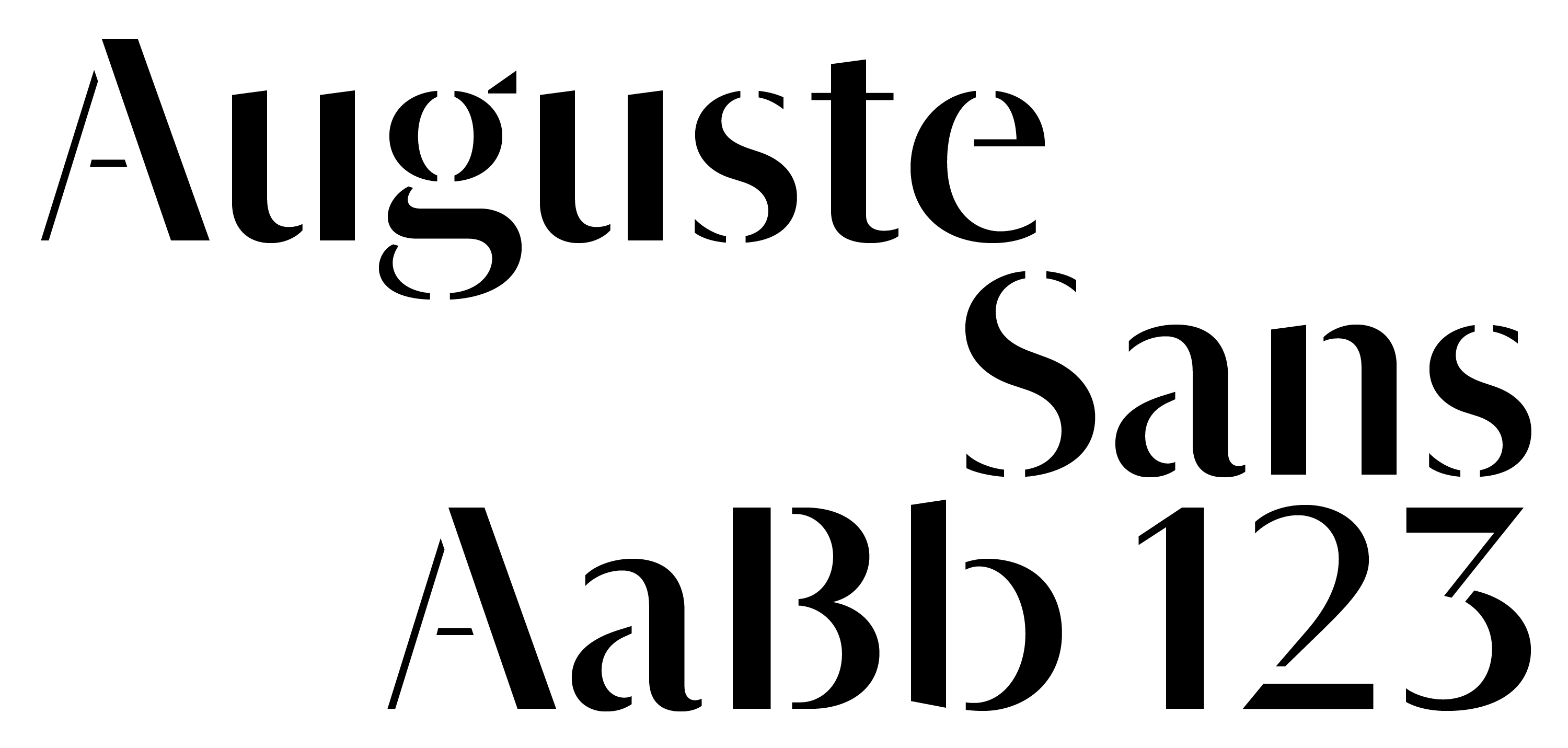
Auguste Sans Light
Auguste Sans Regular
Auguste Sans Medium
Auguste Sans Bold
Inspired by typography from mid-century France, Auguste is available in both Sans and Serif versions. The two styles are distinct, yet they share the same foundations and space, so they can comfortably be used in unison.They are remarkably well balanced at small sizes but feel more confident when used large.